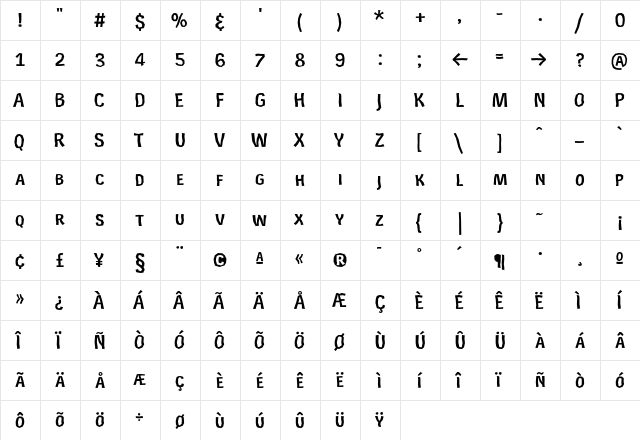
Rekord Caps Regular
Design Context for Rekord Caps Typeface
Rekord Caps is a composed and adaptable typeface that performs quietly and consistently across a wide range of design contexts.